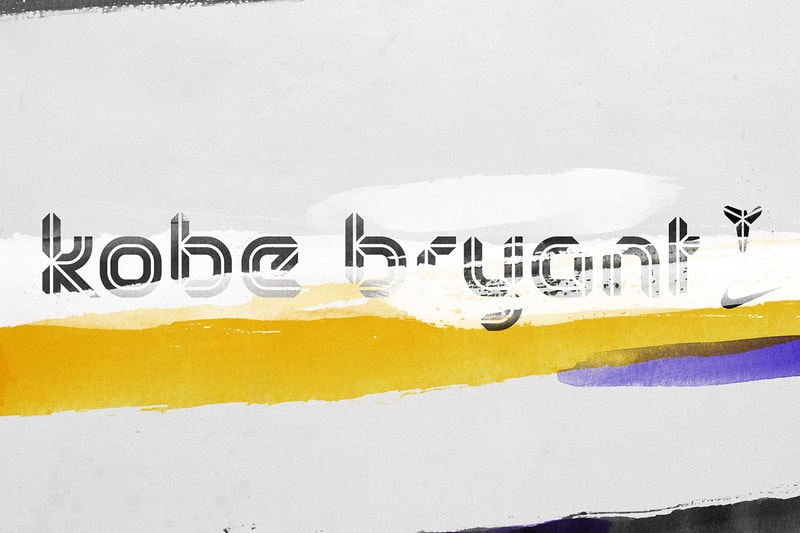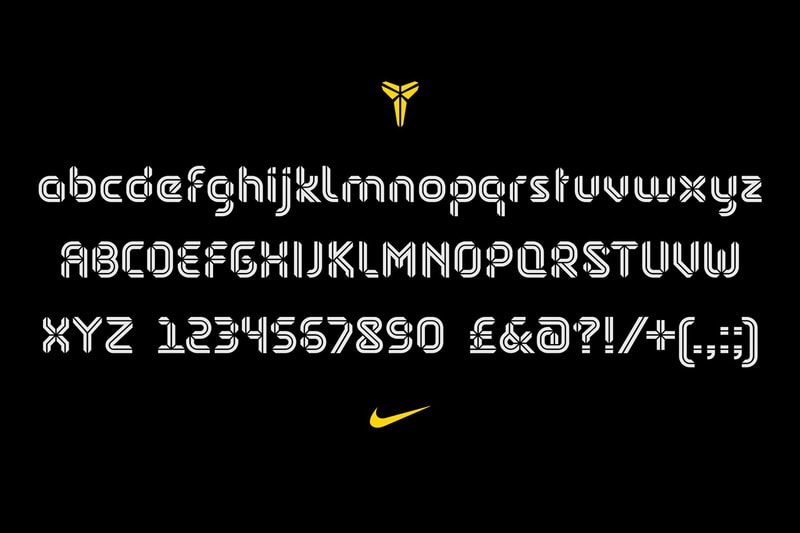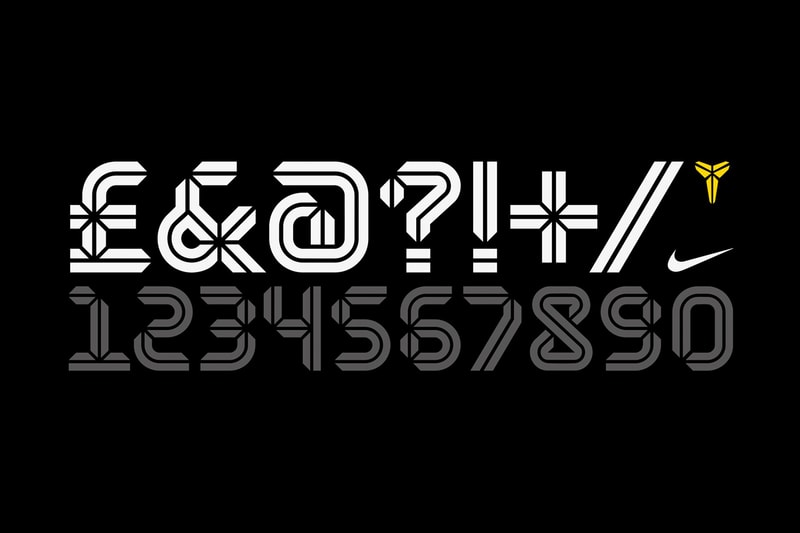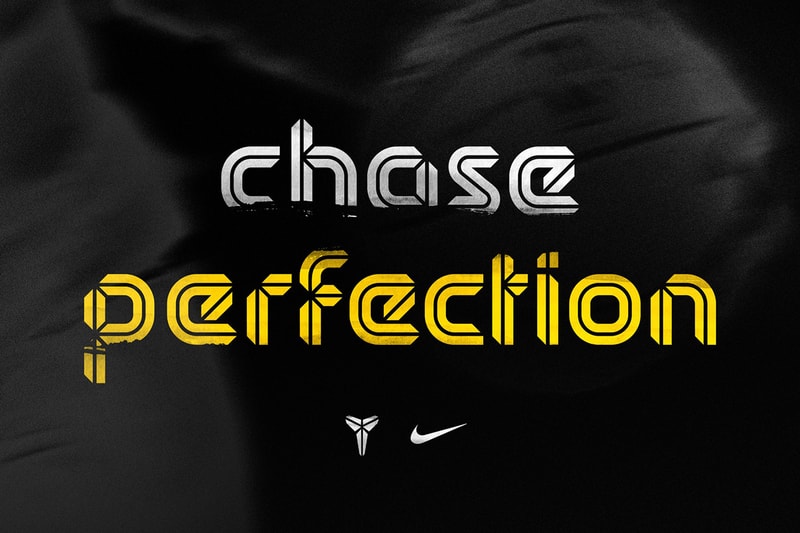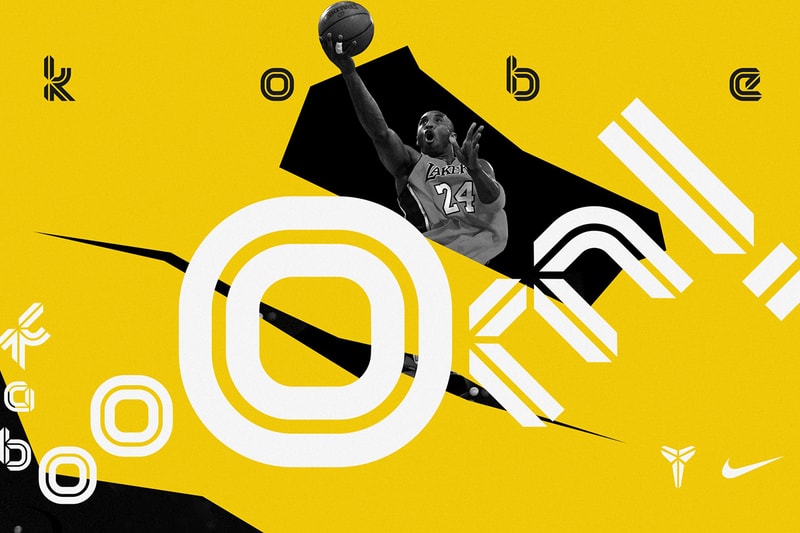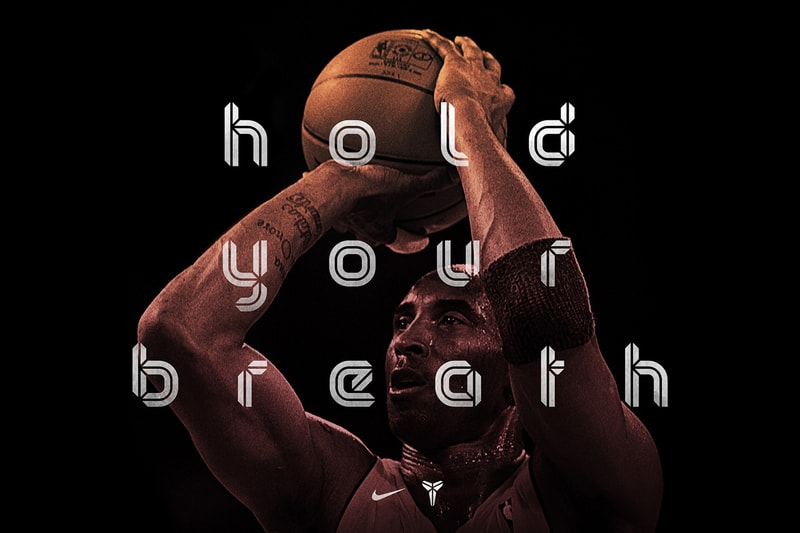
Creative Agency Designs Entire Typeface Around Kobe Bryant's Logo
Reverse engineering a logo into a typeface is no small feat.
The logo for Kobe Bryant’s line of signature basketball sneakers is a branding triumph for Nike: simple, instantly recognizable and immediately impactful, the logo ticks all the boxes in terms of design. It is no surprise, therefore, that Nike has commissioned two-man creative studio Sawdust to design a bespoke typeface taking the logo as inspiration. Having previously worked with the likes of Coca-Cola and The New York Times, Jonathan Quainton and Rob Gonzalez of Sawdust were not fazed by the prospect of taking on such a project. Speaking on the design, Gonzalez says that “the design was inspired by the star-like negative space that is created in the central point of the logo mark. It creates movement and energy, which is something we tried to capture in the type design.” Check out more from Sawdust here.